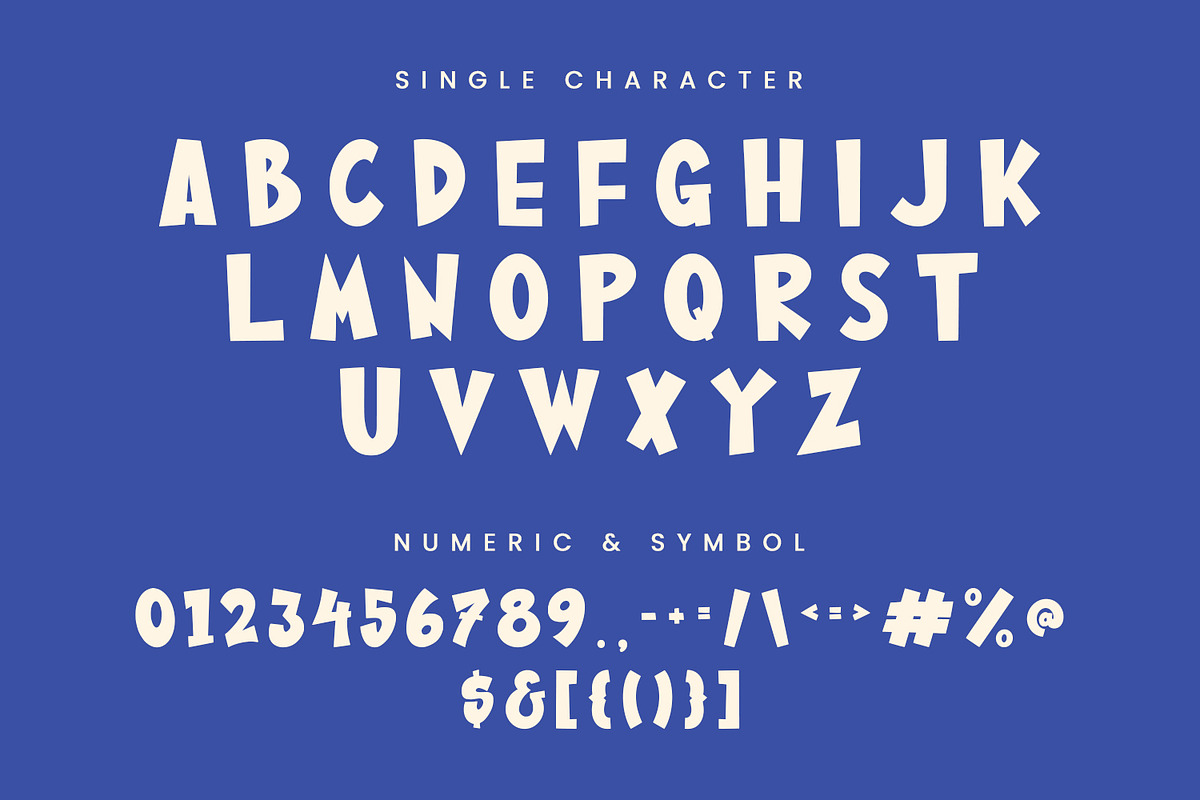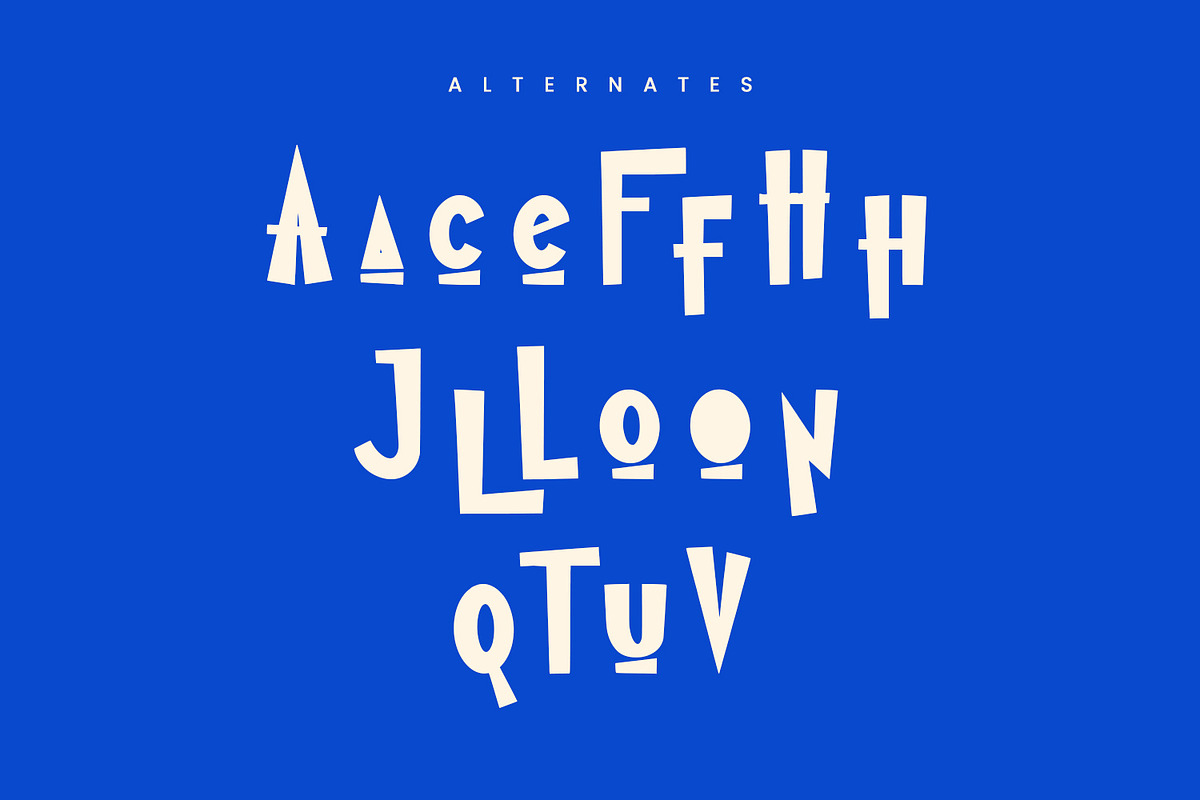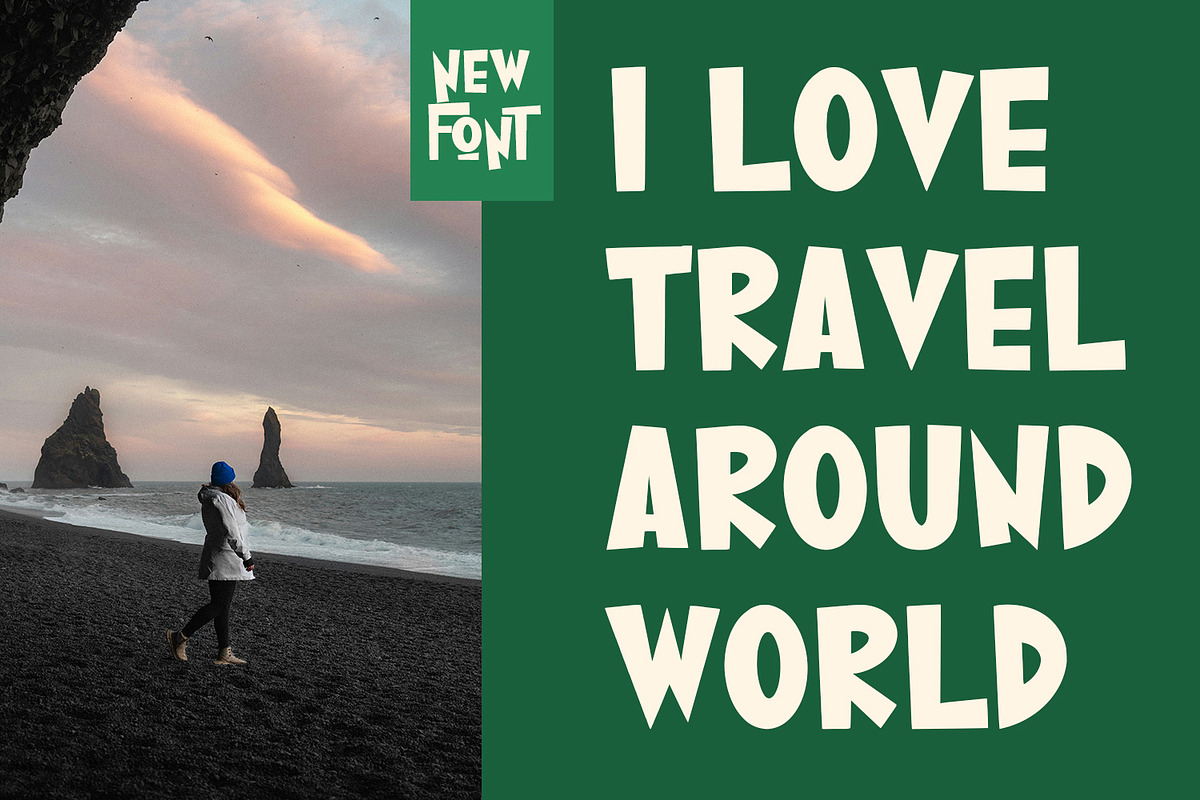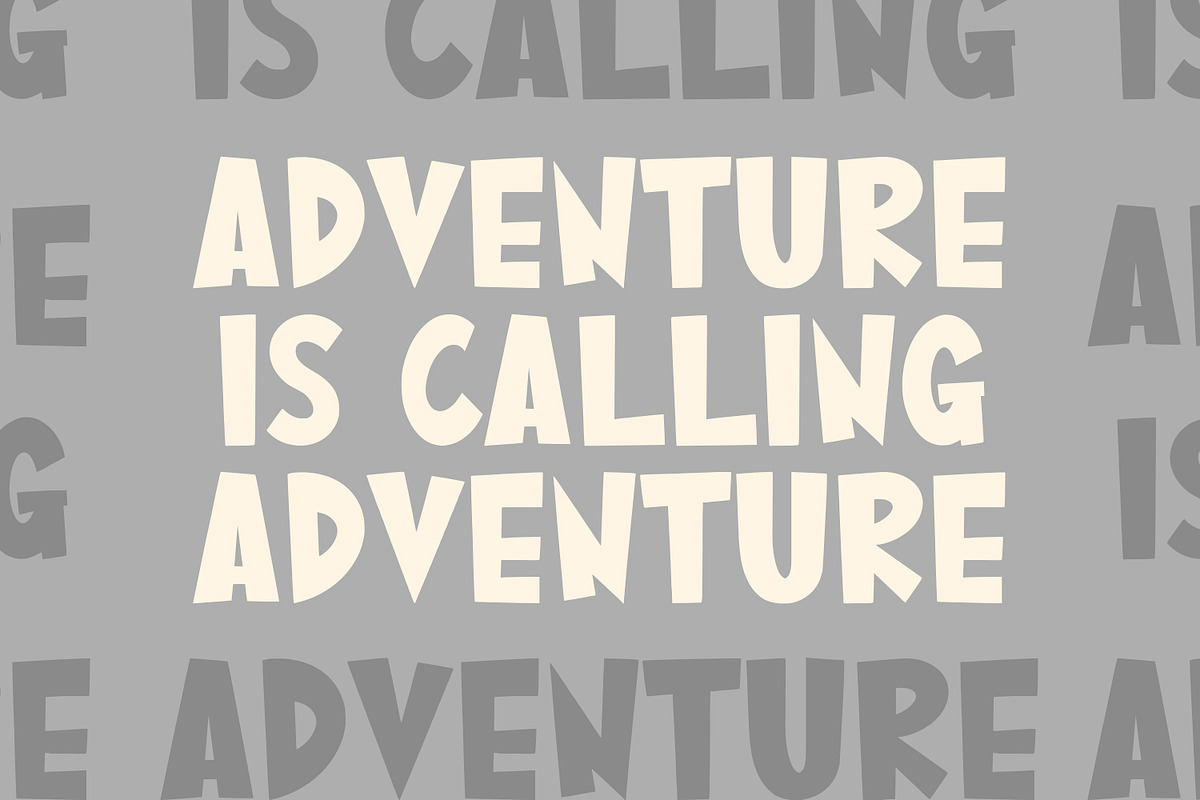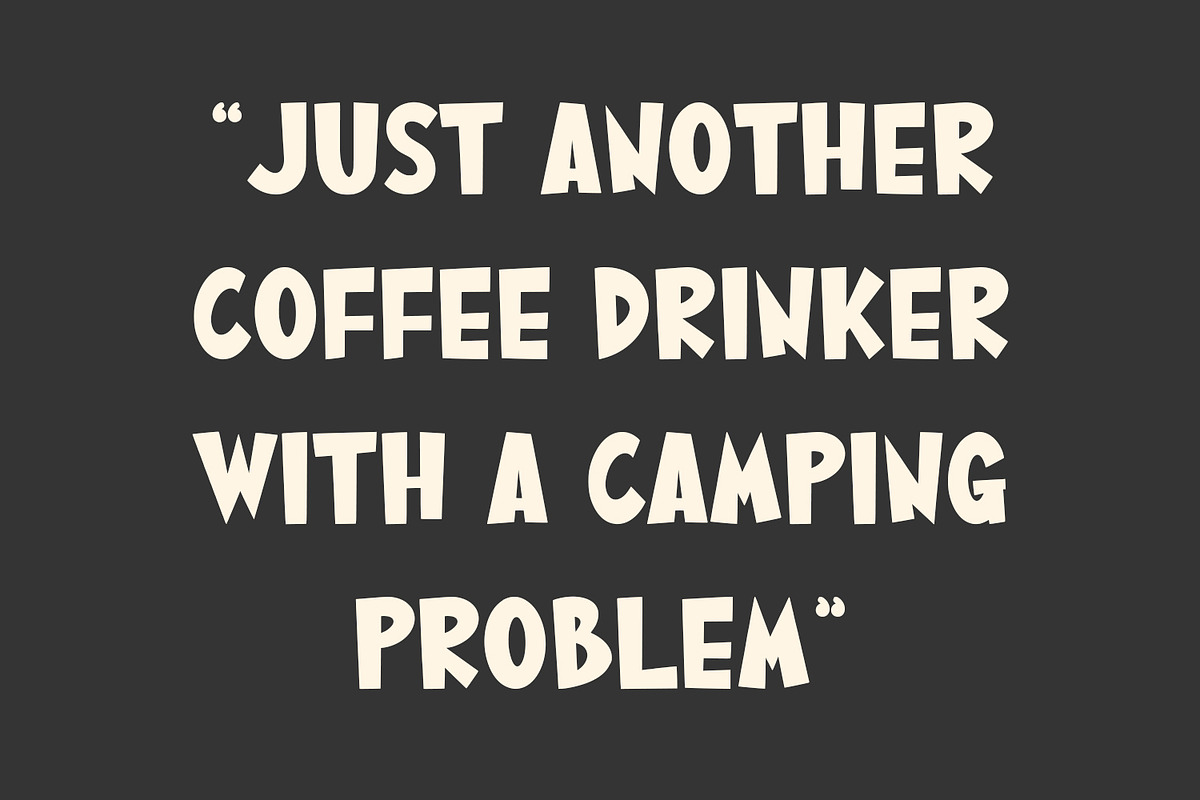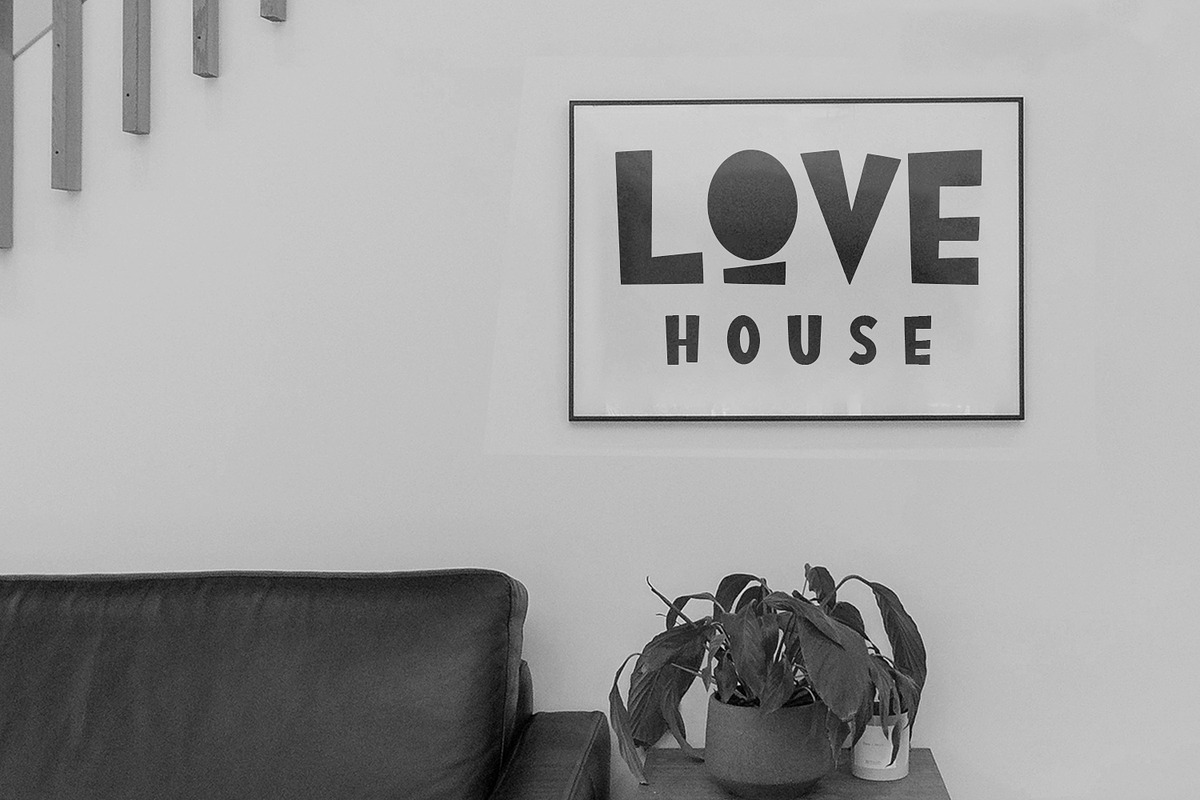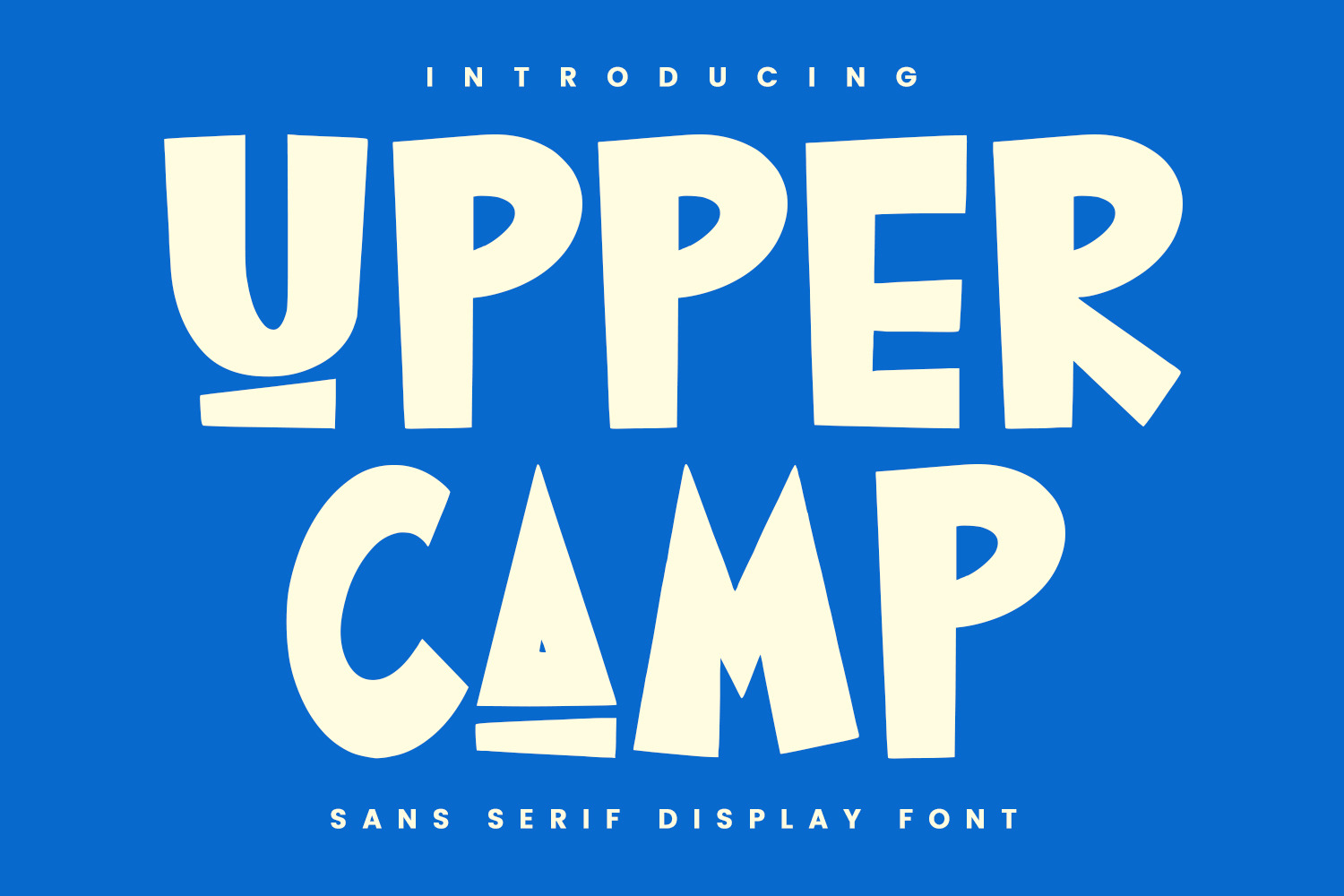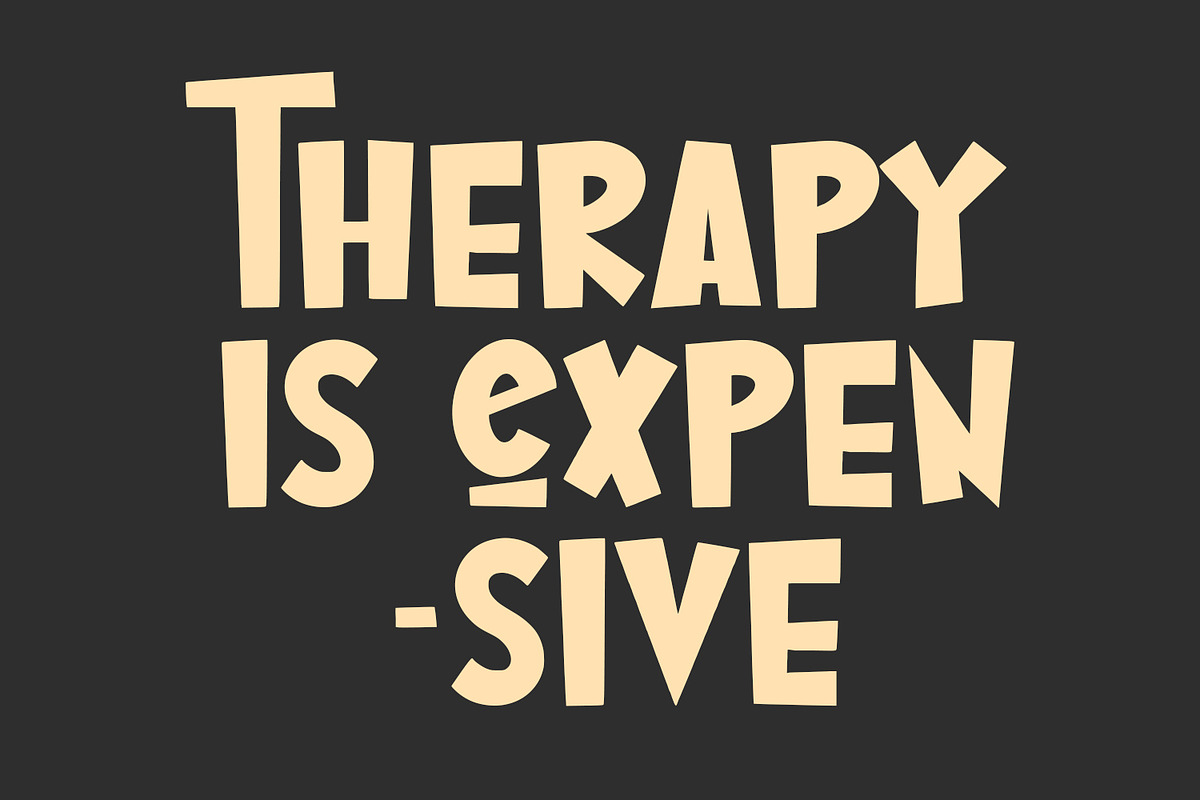
Upper Camp Sans Serif Display Font
Upper Camp fun cartoon sans display font, fun character with alternates to give you an extra creative work. Upper Camp fun cartoon display font support multilingual language.